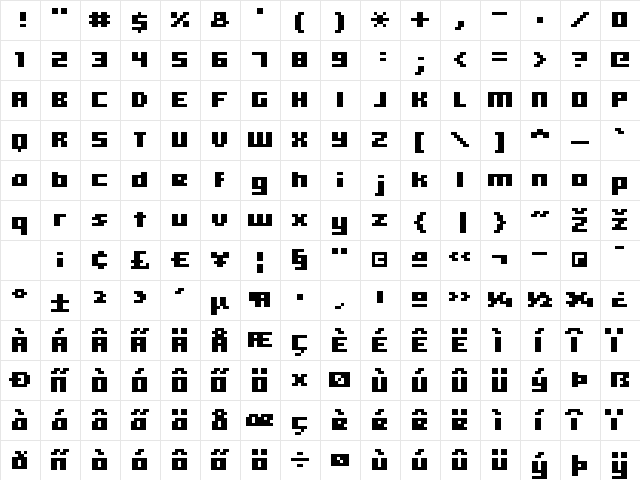
hooge 05_66 Regular Font Preview
hooge 05_66 Regular
hooge 05_66 Regular Font Details
| Designer | Craig Kroeger |
Design Context for hooge 05_66 Typeface
hooge 05_66 offers clean, dependable letterforms without strong stylistic allegiance, making it a practical choice for designers who need flexibility.